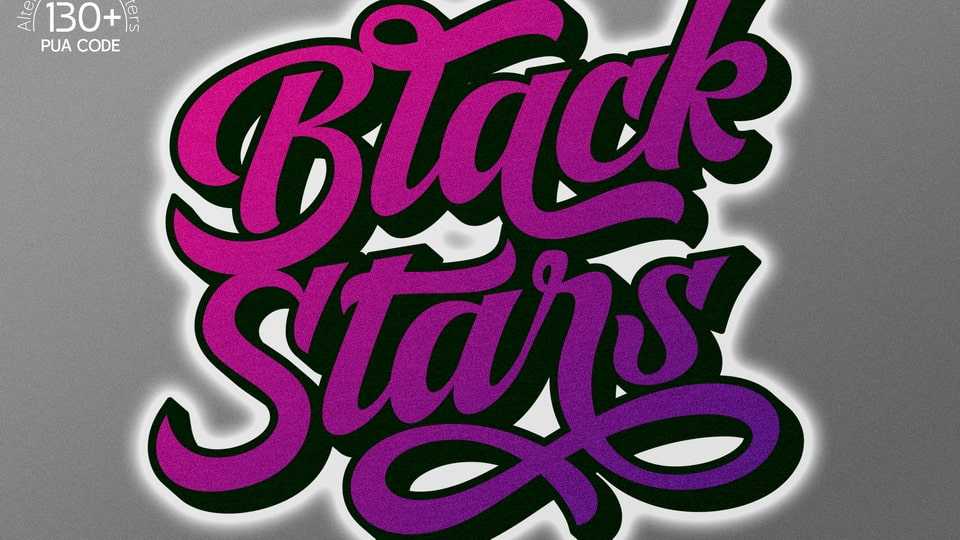
Download Black Stars font, a neat and retro brushed handwritten typeface. Black Stars font, has many alternate characters which will give you convenience when choosing a character for each design project.